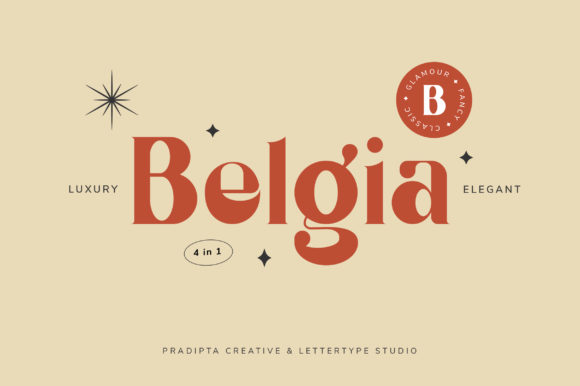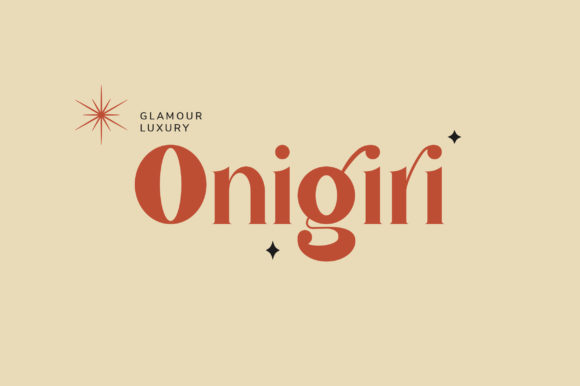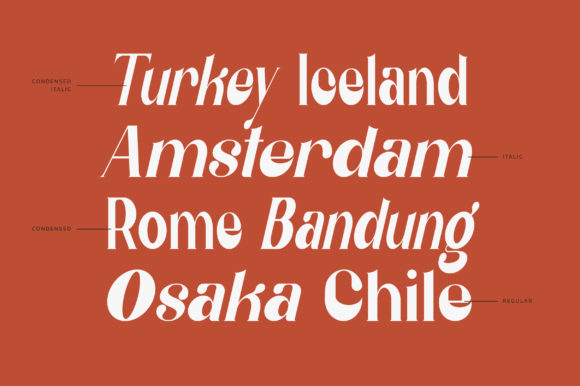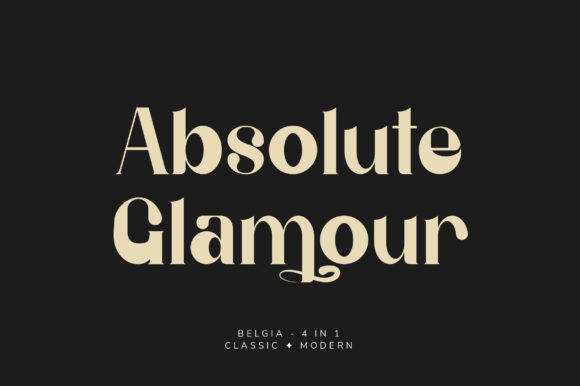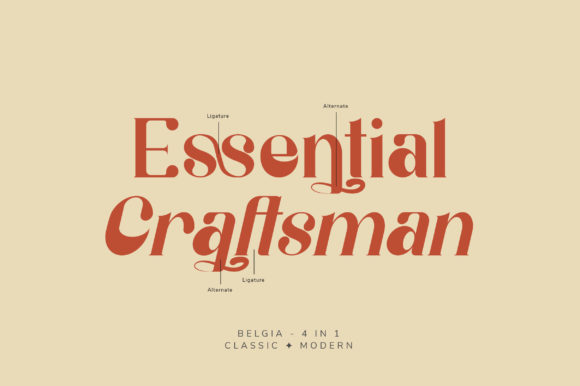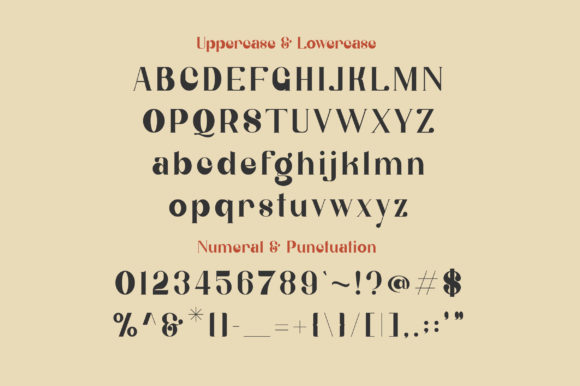
Unlock the Magic of Typography: Discover Belgia Font
Do you remember the thrill of discovering that perfect font that elevates your design from ordinary to extraordinary? For many of us, it’s a moment that sparks creativity and sets the tone for a project’s success. Today, we’re excited to introduce you to Belgia Font, a stunning serif font that’s sure to become your new go-to choice.
Belgia Font is more than just a beautiful font – it’s a versatile tool designed to help you create spectacular designs. With its elegant, bold, and trendy style, you’ll be able to tackle a wide range of projects, from elegant invitations to modern logos. And with its PUA encoding, accessing all the glyphs and swashes is a breeze, giving you even more creative freedom to experiment and express yourself.
Belgia Font Key Features
- Font Family: Belgiuma, Belgiuma Italic, Belgiuma Bold, Belgiuma Bold Italic
- Unique Characteristic: Belgiuma has a unique, elegant design with a mix of modern and traditional elements, making it suitable for various design projects, including logos, branding, and advertising.
Belgia Font Review
Overall, I was impressed by the unique character of the Belgia font. Its mix of elegance and playfulness ✨ makes it suitable for a wide range of applications, from modern branding to creative projects.
- ✨ Unique blend of styles: Belgia effortlessly combines sophistication with whimsy, making it versatile for various design projects.
- ✨ Excellent legibility: The font is clear and easy to read, even at smaller sizes, which is a must for any successful font.
- ✨ Wide character set: Belgia includes a vast array of characters, including accented letters, making it suitable for international designs.
- ⚠️ Limited support: Some older systems or fonts may not support Belgia properly, which could lead to compatibility issues.
- ⚠️ Weight balance: While the font’s unique design is a strength, it can also make it challenging to achieve a balanced weight distribution, particularly in text-heavy designs.
In conclusion, Belgia is a unique and engaging font that can elevate a design project. However, designers should be aware of the potential limitations and take necessary precautions to ensure compatibility and balance.
Tip: Use the Belgia font for headings and titles to create a bold and elegant look.
Tip: Use the Belgia font for headings and titles in your designs to create a professional look.
Tip: Use the Belgia font for headings and titles in your presentations and documents to create a clean and modern look.
The Belgia font is suitable for:
- Logo designs
- Business cards
Remember to use the Belgia font consistently throughout your design to create a cohesive and professional look.
Raleway is a sans-serif font that is highly customizable and has a wide range of weights. It is perfect for body text and is widely used in digital interfaces. Compared to Belgia Font, Raleway is more elegant and has a softer design, making it suitable for a wide range of applications.
Belgia Font Creative Project Ideas
Project 1: Minimalist Quote Card
Create a simple yet elegant quote card using Belgia Font. This project is perfect for inspiring quotes or personal messages.
How to use Belgia Font: Use Belgia Font for the quote text, with a single line of text per card. You can adjust the font size to make it more prominent.
What is the recommended font pairing for Belgia Font?
Belgia Font is a versatile font that can be paired with a variety of other fonts to create a unique and harmonious typography. Some recommended font pairing options include Open Sans, Lato, and Montserrat. You can also experiment with other sans-serif fonts to find the perfect pairing for your design project.